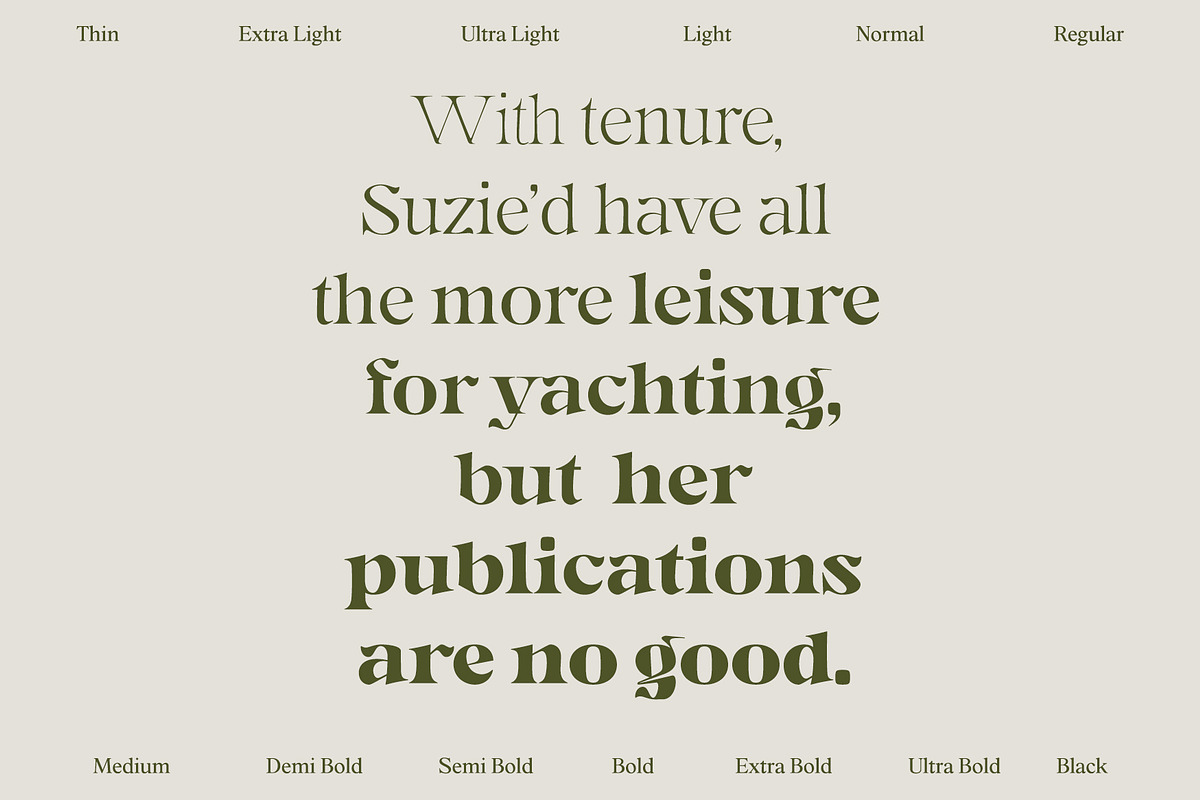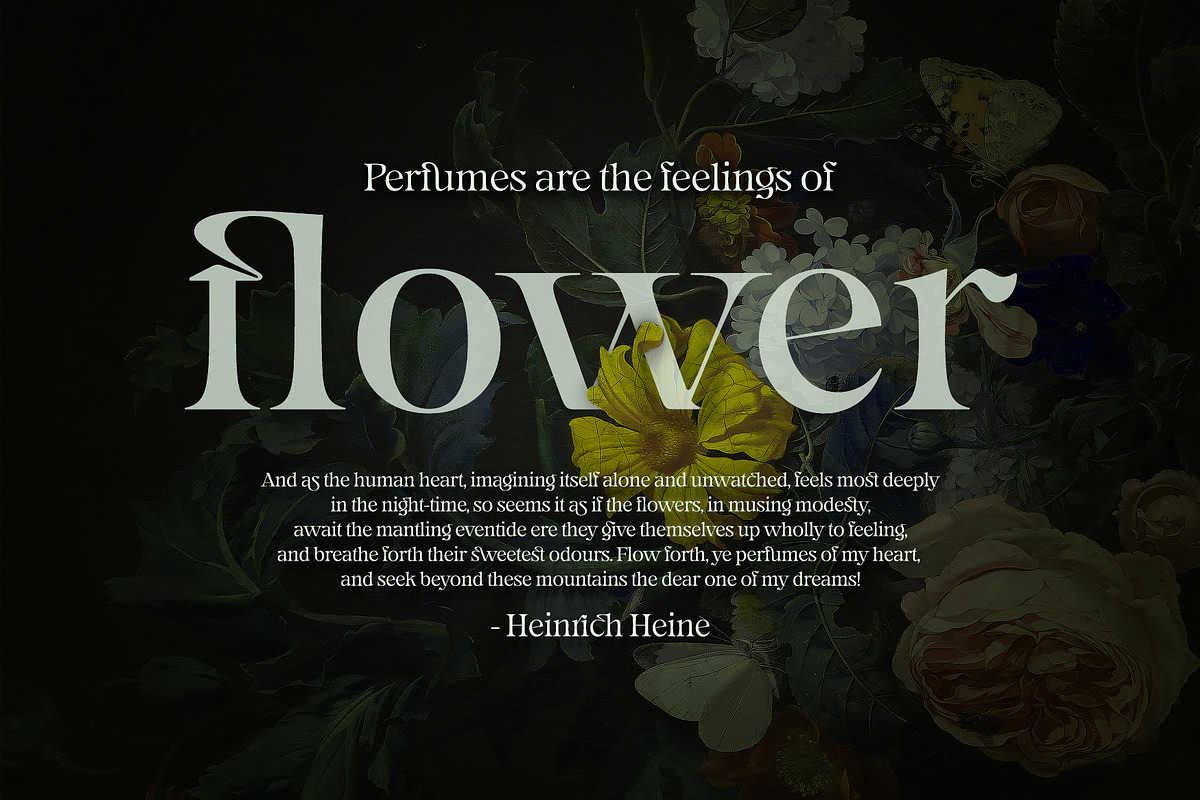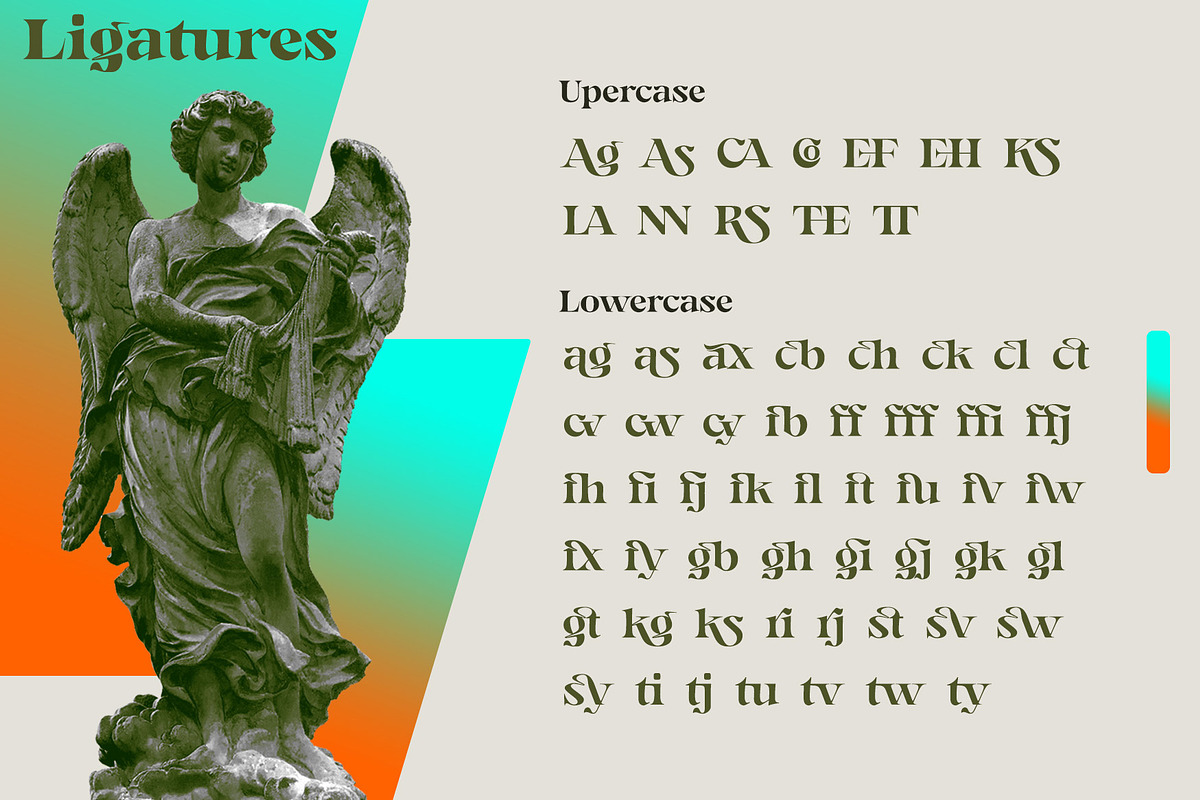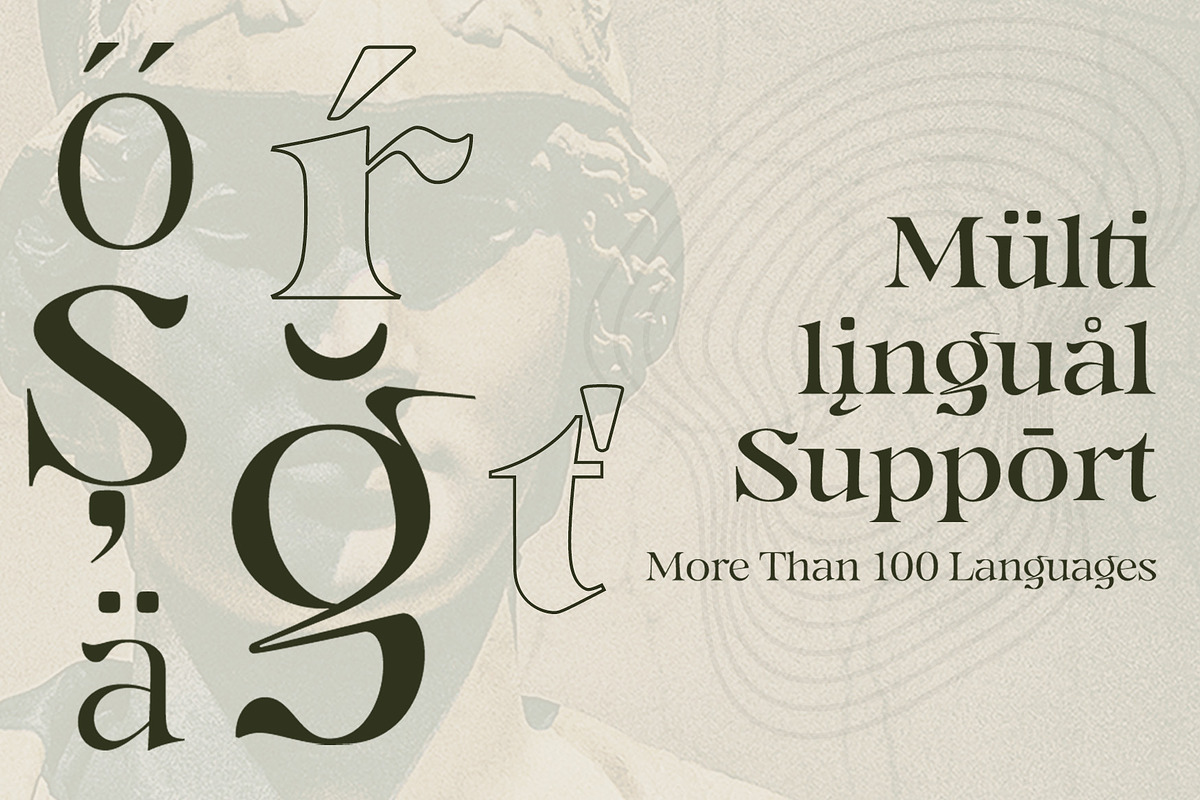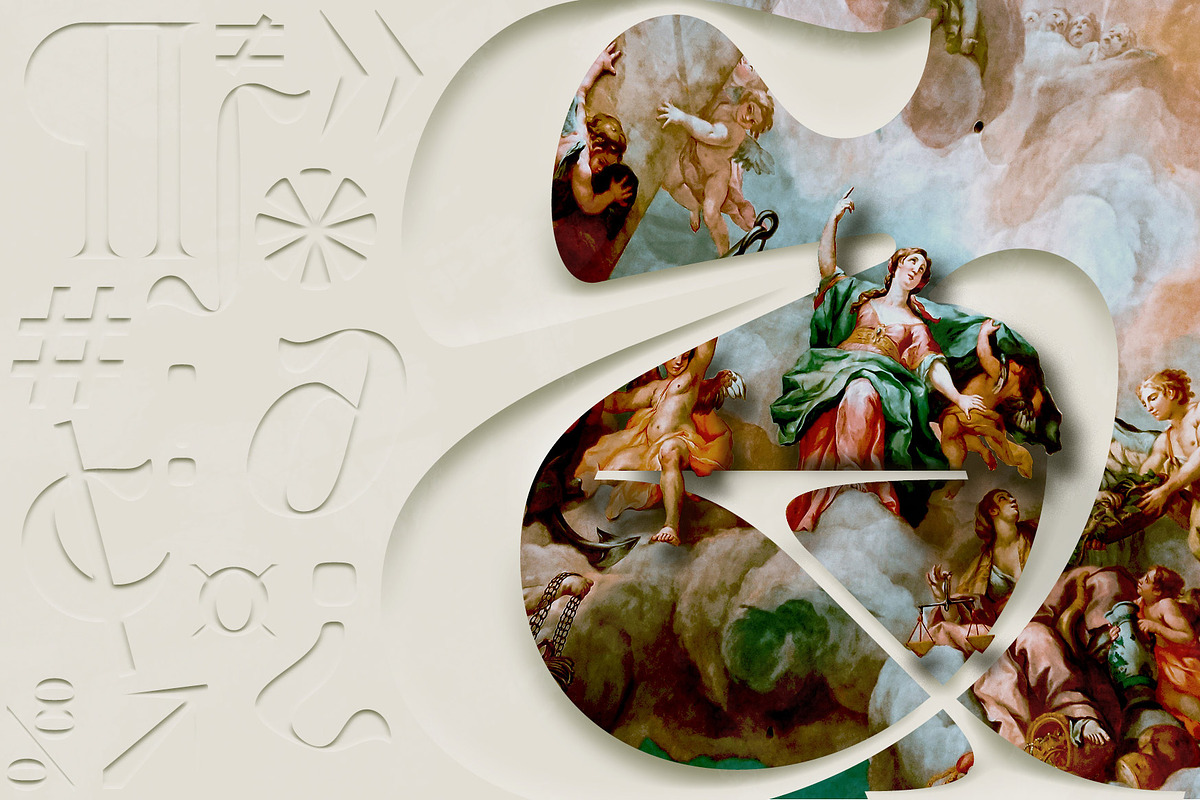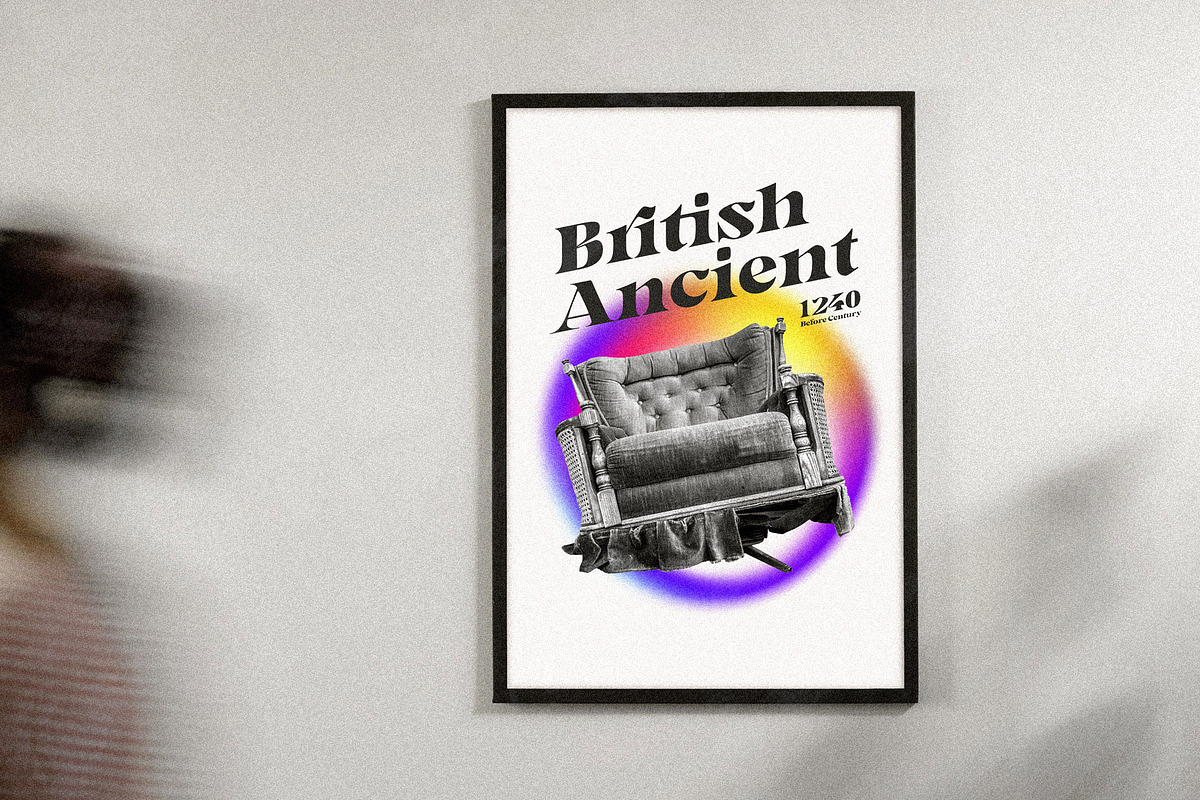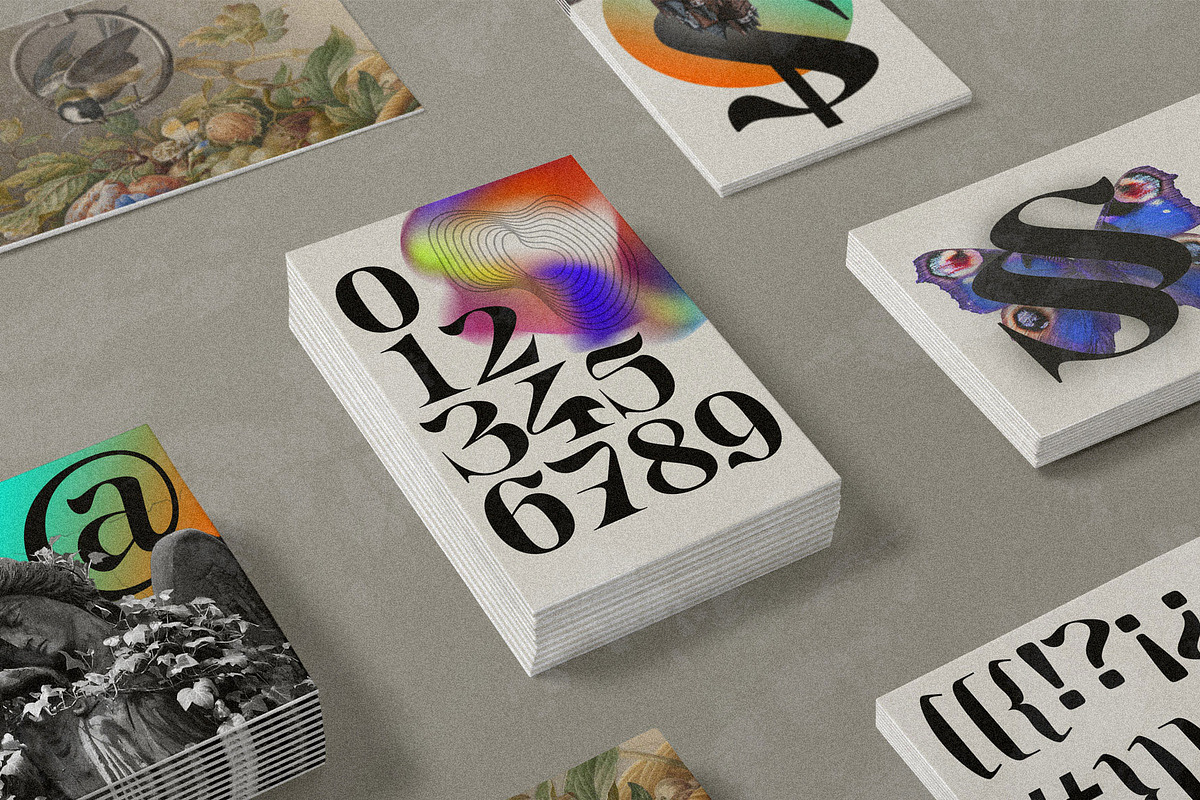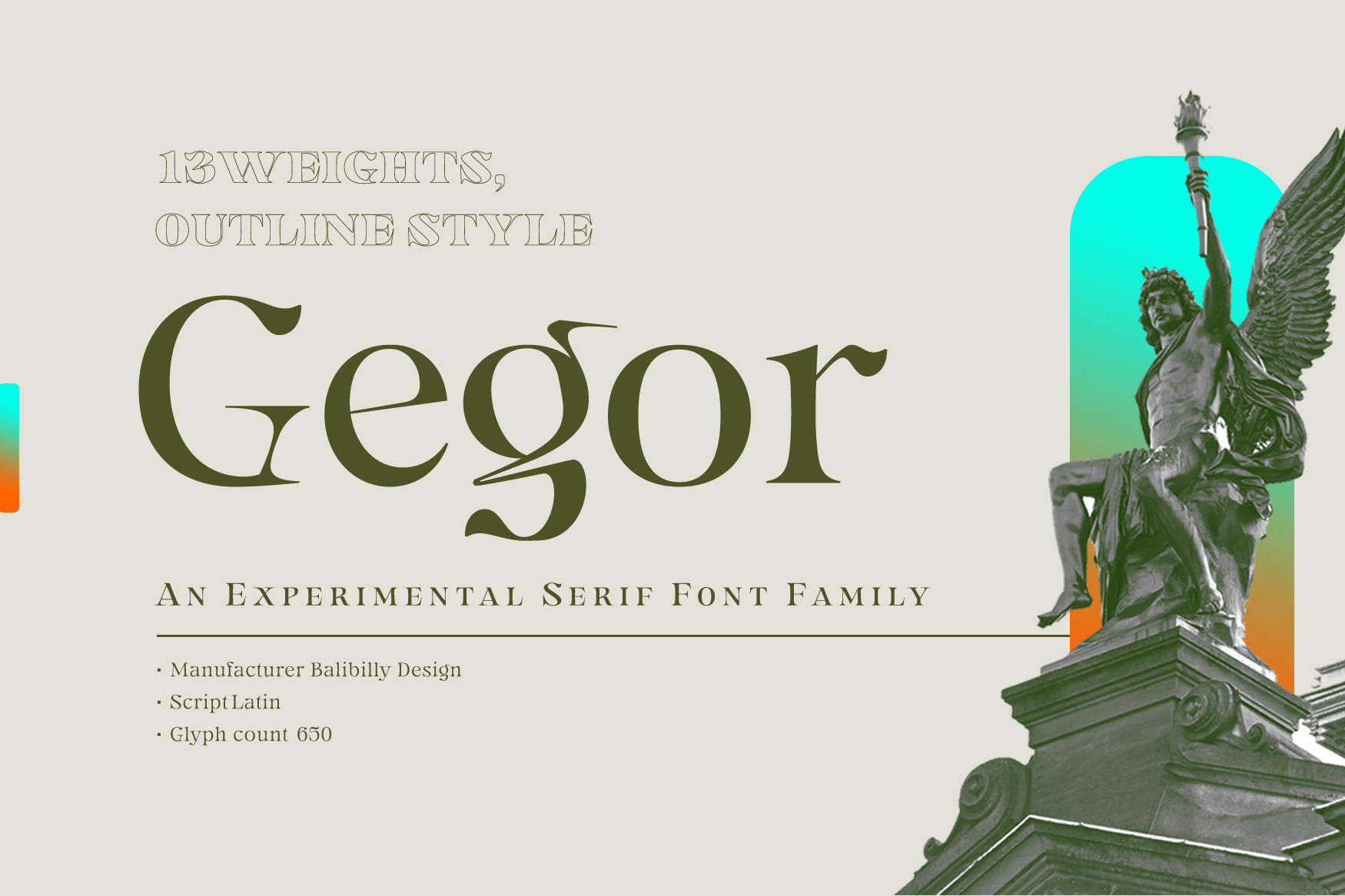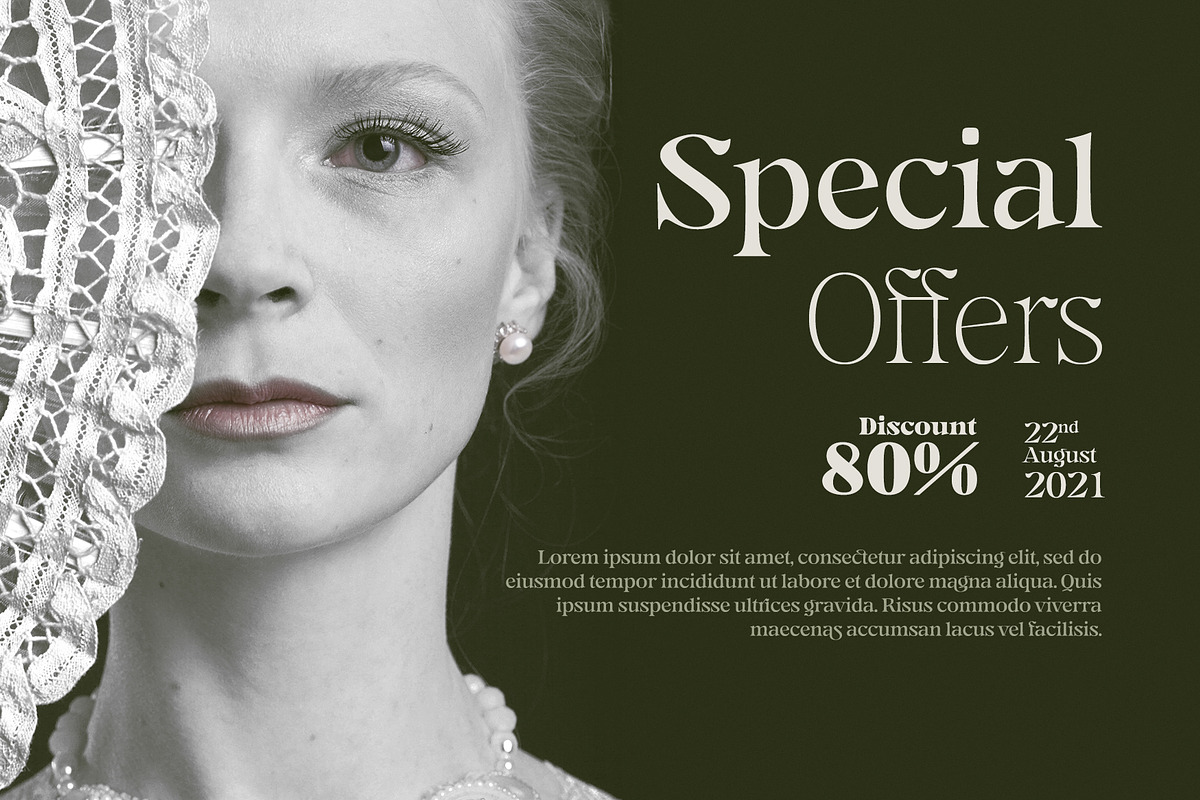
Gegor - Serif Medieval Display Font
Say Hello to Gegor, an experimental serif display font.
Gegor is freedom of our hand when creating the letterform without many references. We try to let the pen tool flow and dancing according to our imagination. The characters of this typeface are adopted from the letter "r". She was born and influence each other. The simple shape on the shoulder are slightly pointy at a thick weight and curves at a thin weight have a big influence on other letters. The unique form of letter "r" takes us to further development to get achieve a distinct harmony as a display typefaces.
If you look at the teaser images and get an idea, we are in line. Gegor consists of 14 families from thin to black, and 1 outline style in black weight equipped with discretionary ligatures, case-sensitive forms, ordinals, small capital, and fractions. Consists of multilingual support including Western European, Central European, and Southeastern European.
Gegor is perfect for posters, logos, branding, magazines, websites, and more. Gegor will give a unique vibe to your works. Cheers!!!